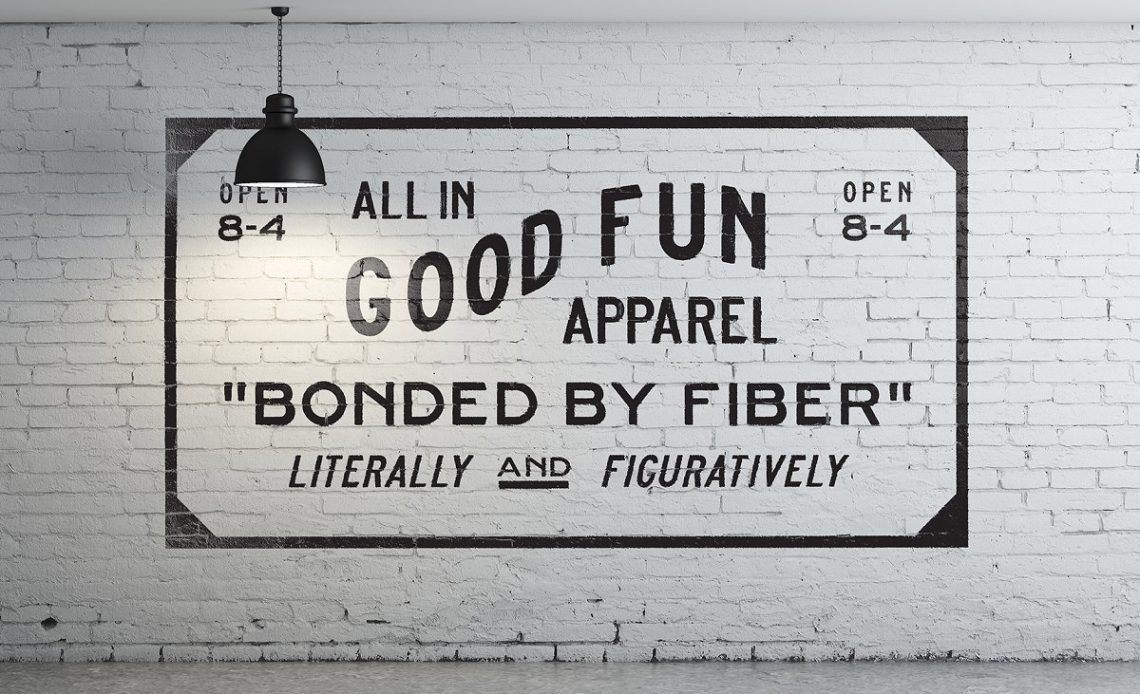
Introducing Jandus Road - A Highway Display Font, the perfect blend of mid-century design influences and modern typography. Created by Jim Kennelly, this font family offers 12 different type styles that can be used to make bold typographic statements for your packaging and branding projects.
Derived from US Highway fonts, Jandus Road takes the simplicity of a highway font and infuses it with vintage flair, making it stand out from the rest. With softened corners, slight width variation, slanted leg details, and raised counters, Jandus Road strikes a perfect balance of legibility and design.
Originally developed in the 1940s, Highway Gothic was designed to standardize all typography used on highway signage by the U.S. government. Before this standardization, road signage was primarily hand-painted and was increasingly illegible as automobiles began to move faster. Highway Gothic was designed with minimal thick-to-thin contrast, large open counters, and distinct characters to ensure legibility at high speeds.
Jandus Road builds upon the classic design of Highway Gothic by incorporating modern typography techniques, resulting in a display font that is both unique and captivating. Whether you're looking to create a vintage-inspired logo or make an impact with your packaging, Jandus Road has you covered.